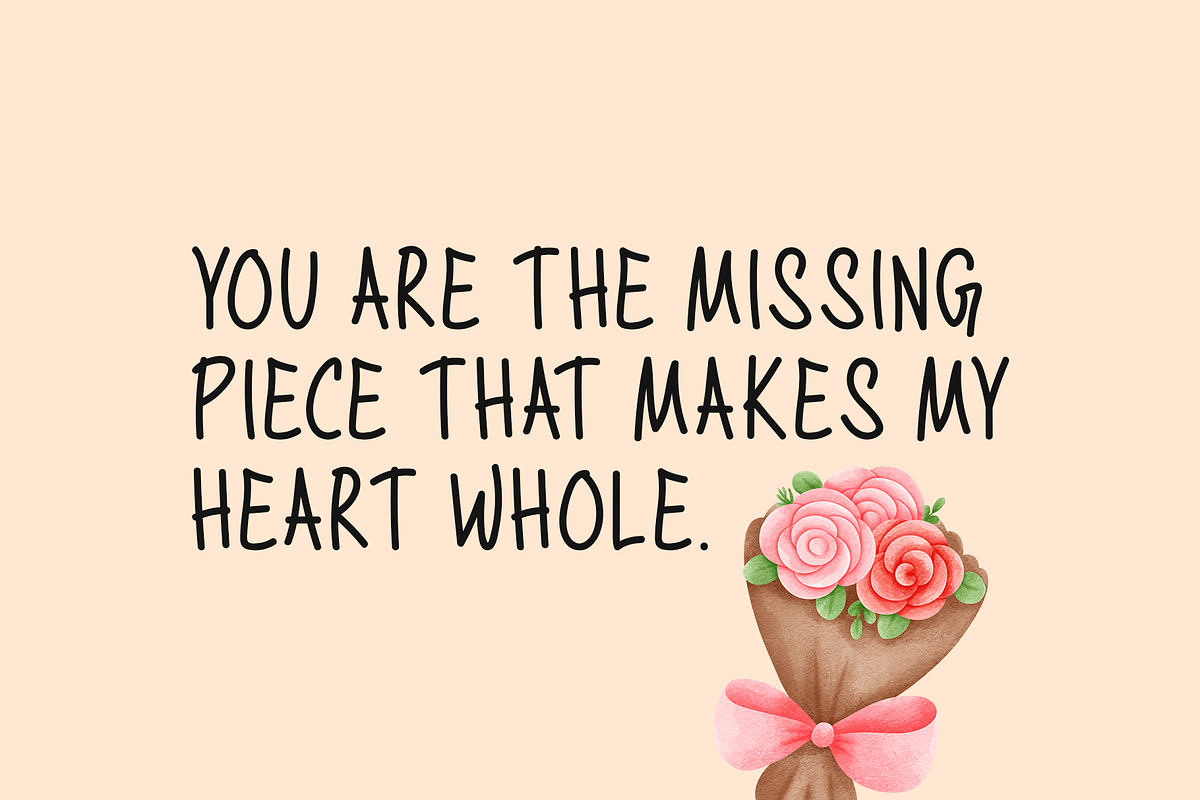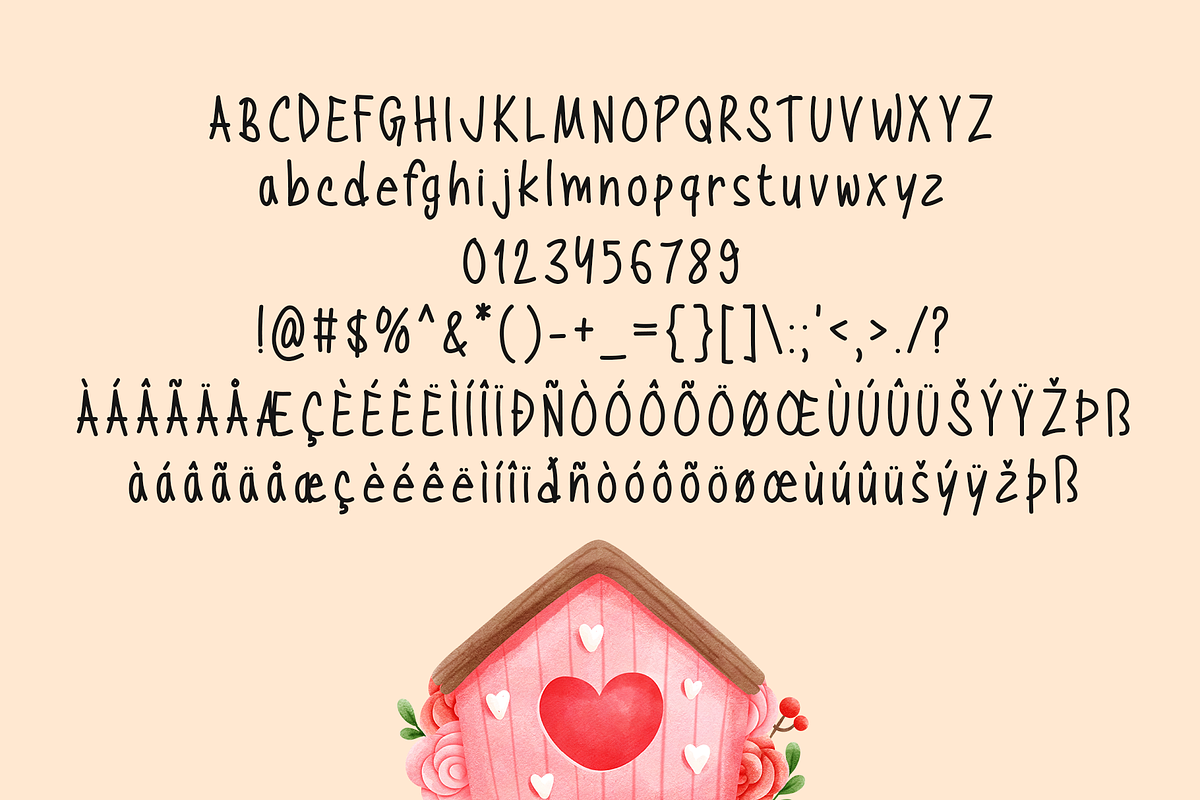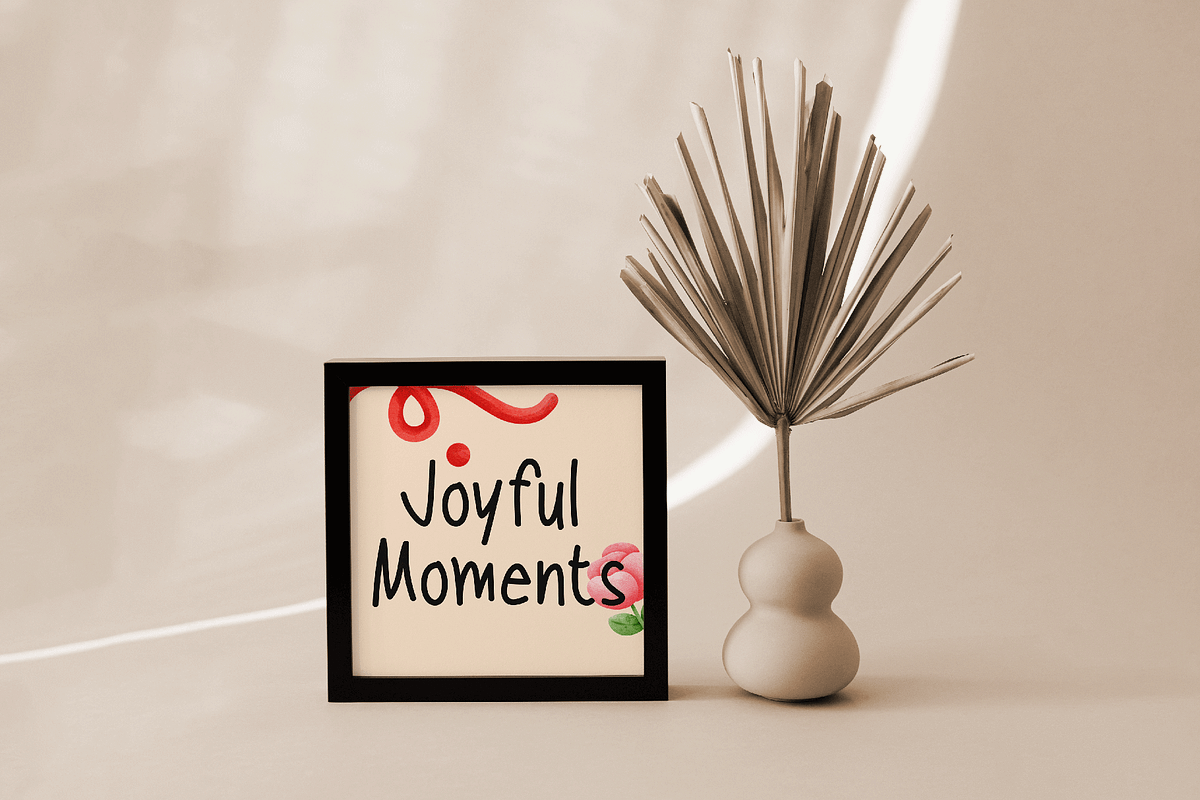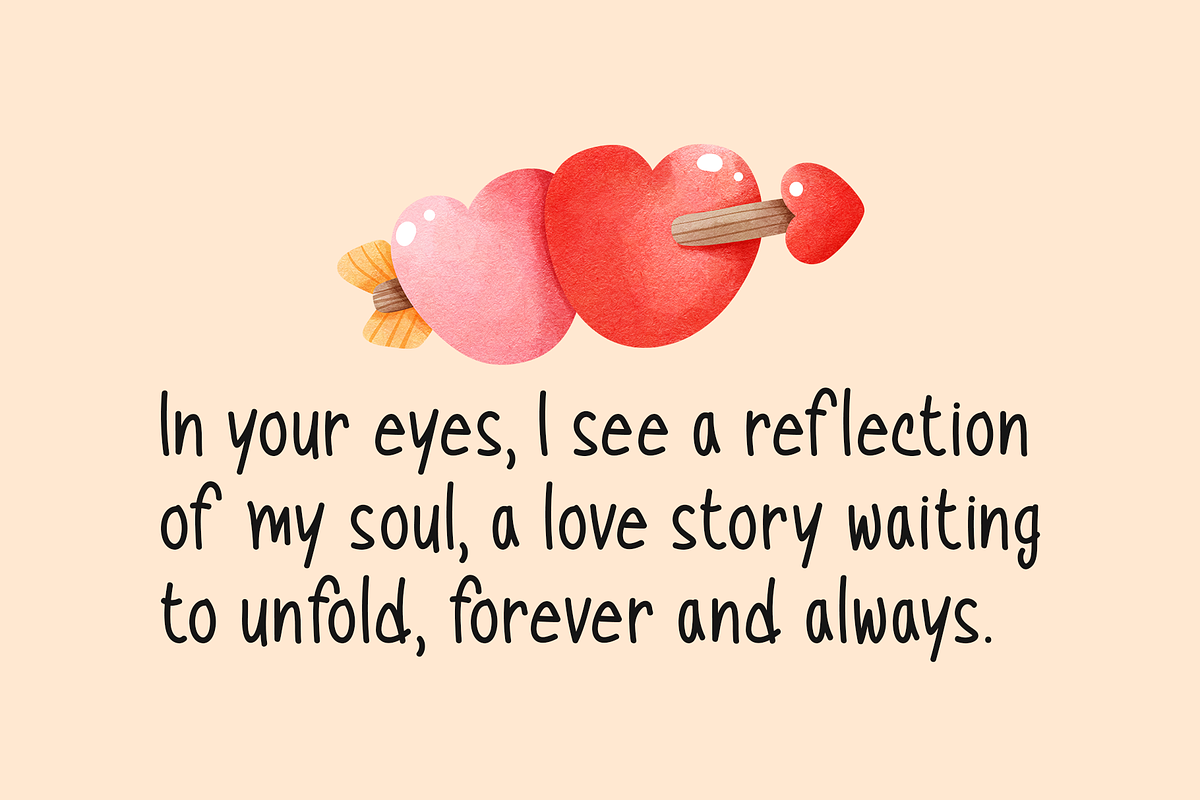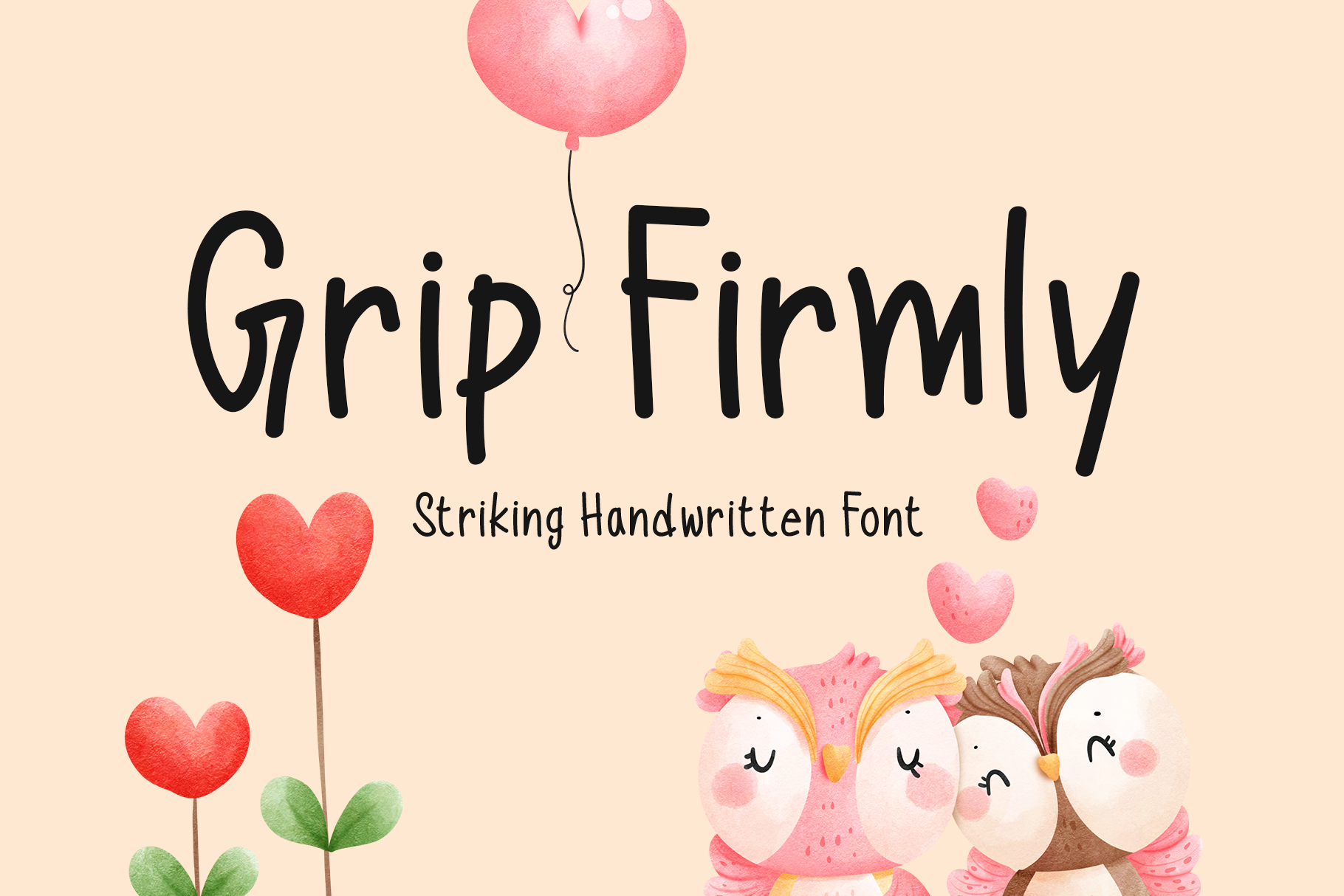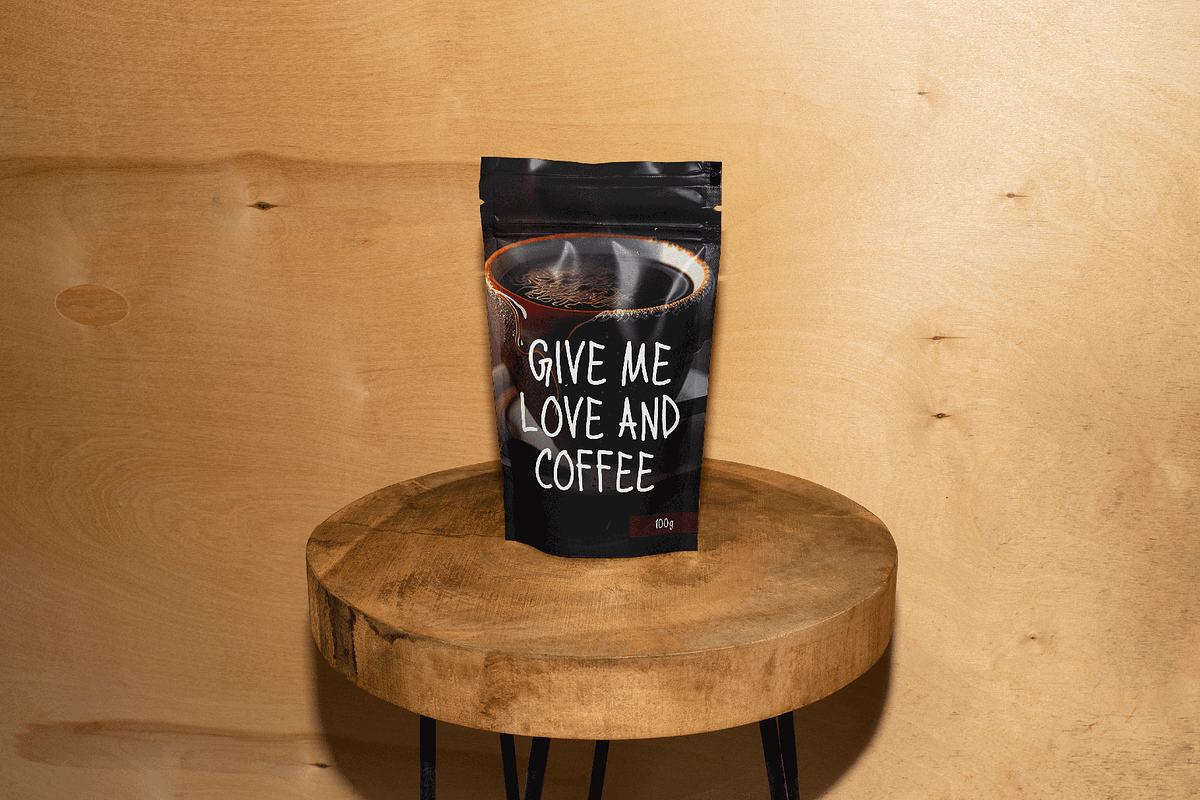
Grip Firmly Typeface
Introducing Grip Firmly!
Grip Firmly is an influential, eye-catching handwritten font. Perfect for logos, stationery, t-shirts, and print designs, it also gives flair to flyers, album covers, posters, photo frames, and website headers. Because of its adaptability, it is ideal for a variety of design projects.
Includes a range of multilingual support